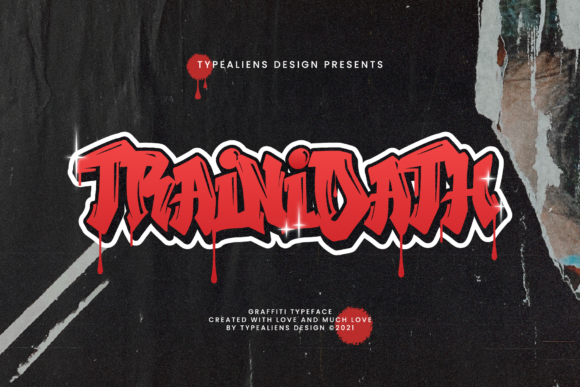
Introducing Trainidath, a remarkable display font exuding a bold and captivating graffiti-inspired aesthetic. With its captivating flow and urban-inspired undertones, this display font is designed to make a statement in various design projects.
Unleash your creativity and let Trainidath take the spotlight in your t-shirt designs, sportswear, logos, advertisements, clothing, and more. This font's versatility allows for limitless possibilities, making it the perfect choice for those seeking a font that commands attention.
Embrace the energy and individuality of Trainidath, and watch as your designs come to life with a touch of urban sophistication. Elevate your projects and make an unforgettable statement with this exceptional display font.
**Features:**
* Bold and striking graffiti-inspired design
* Perfect for t-shirts, sportswear, logos, and more
* Exudes an urban-inspired aesthetic
* Versatile and attention-commanding
**Benefits:**
* Adds instant personality and character to your designs
* Allows for limitless creativity and self-expression
* Suitable for various design projects, including t-shirts, sportswear, and logos
* Leaves a lasting impression on your audience